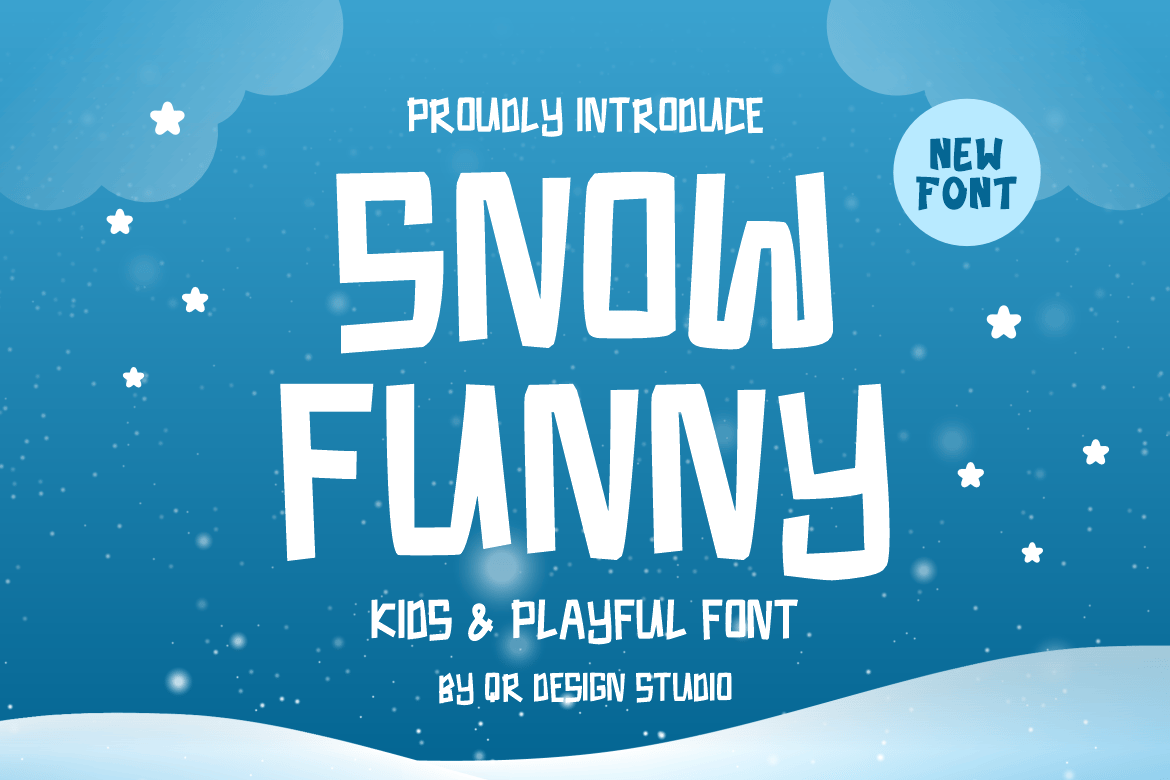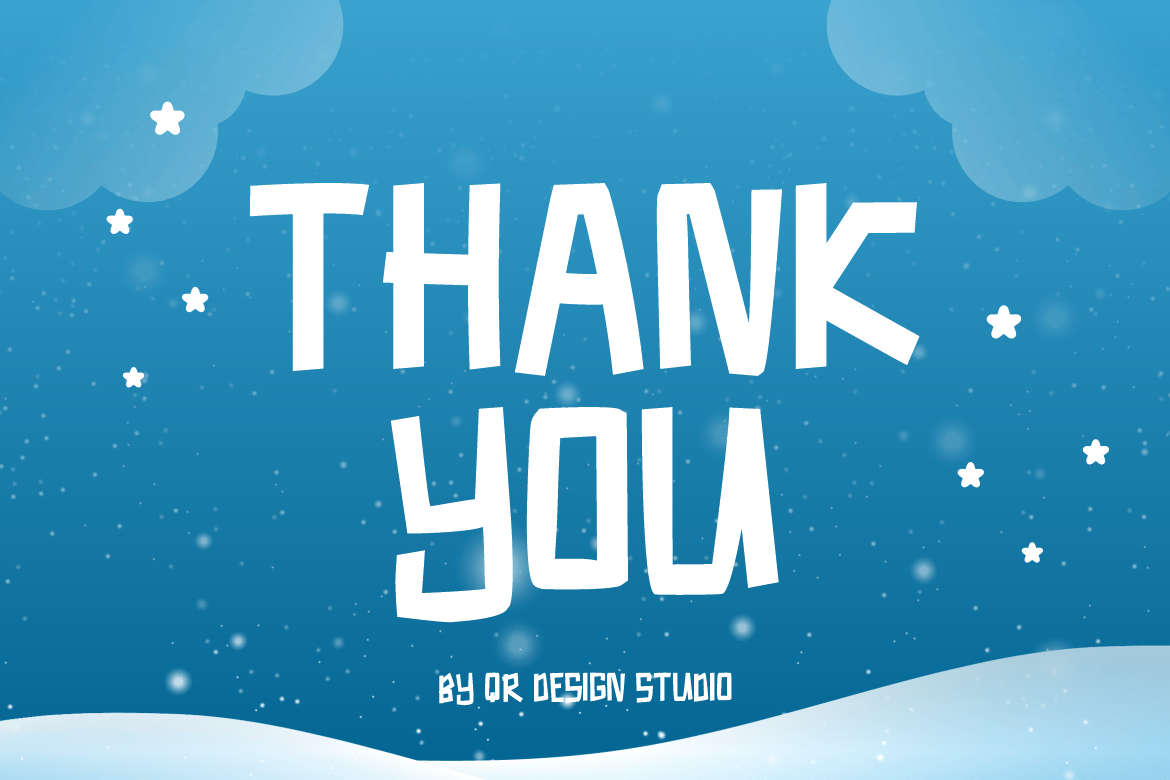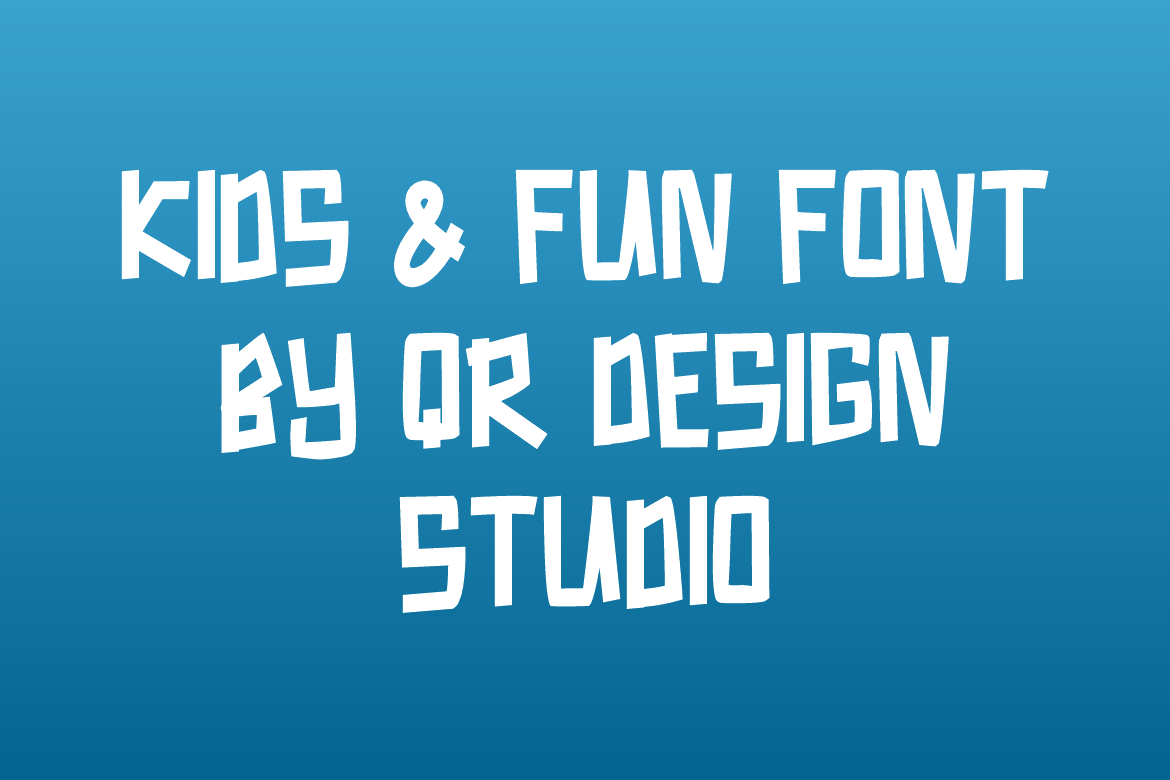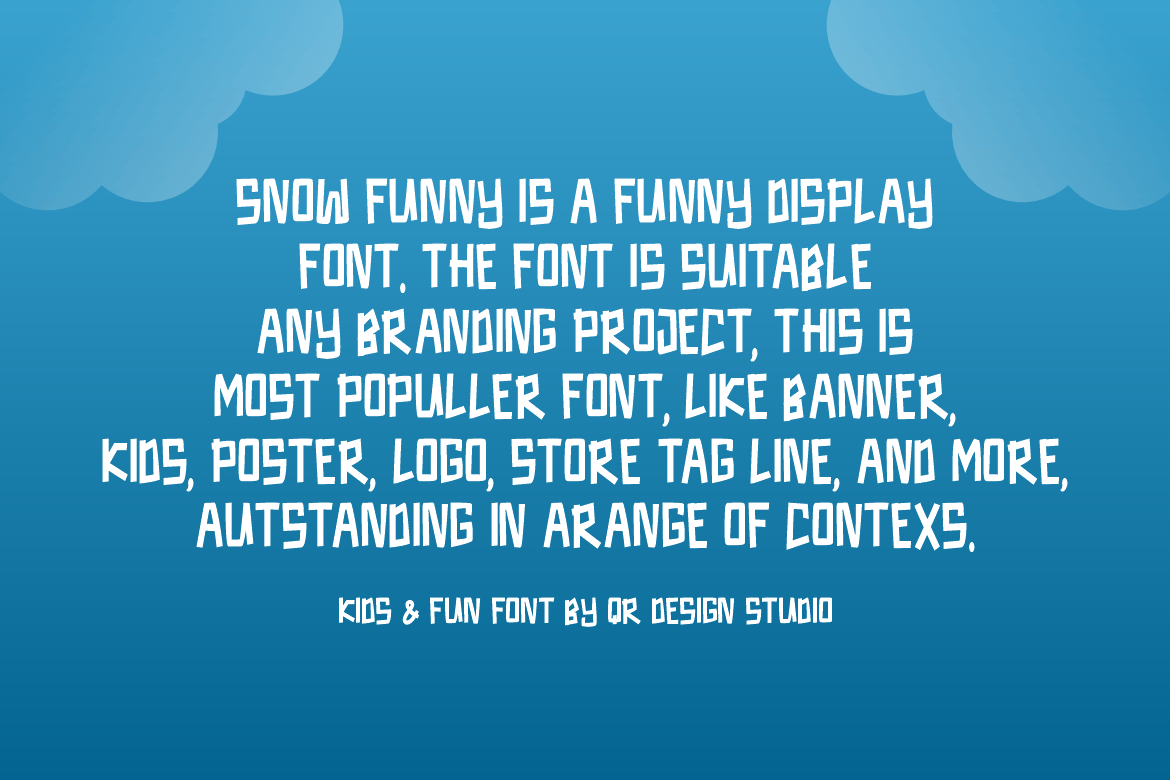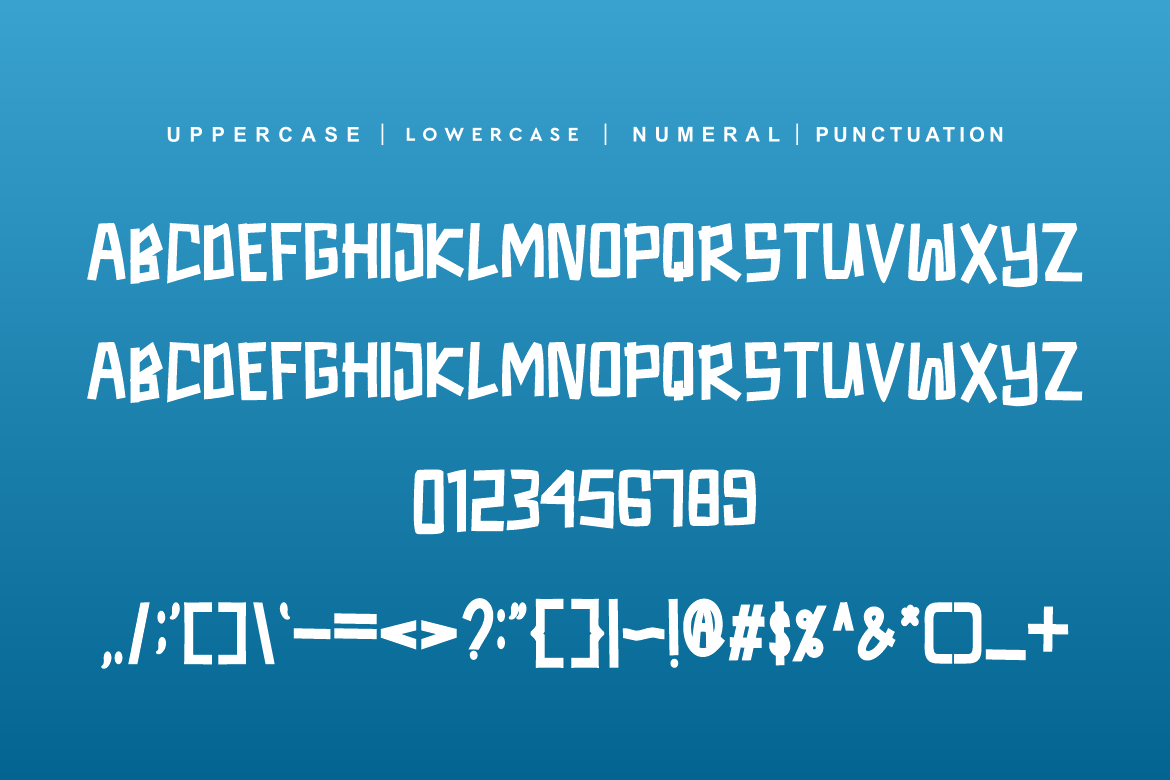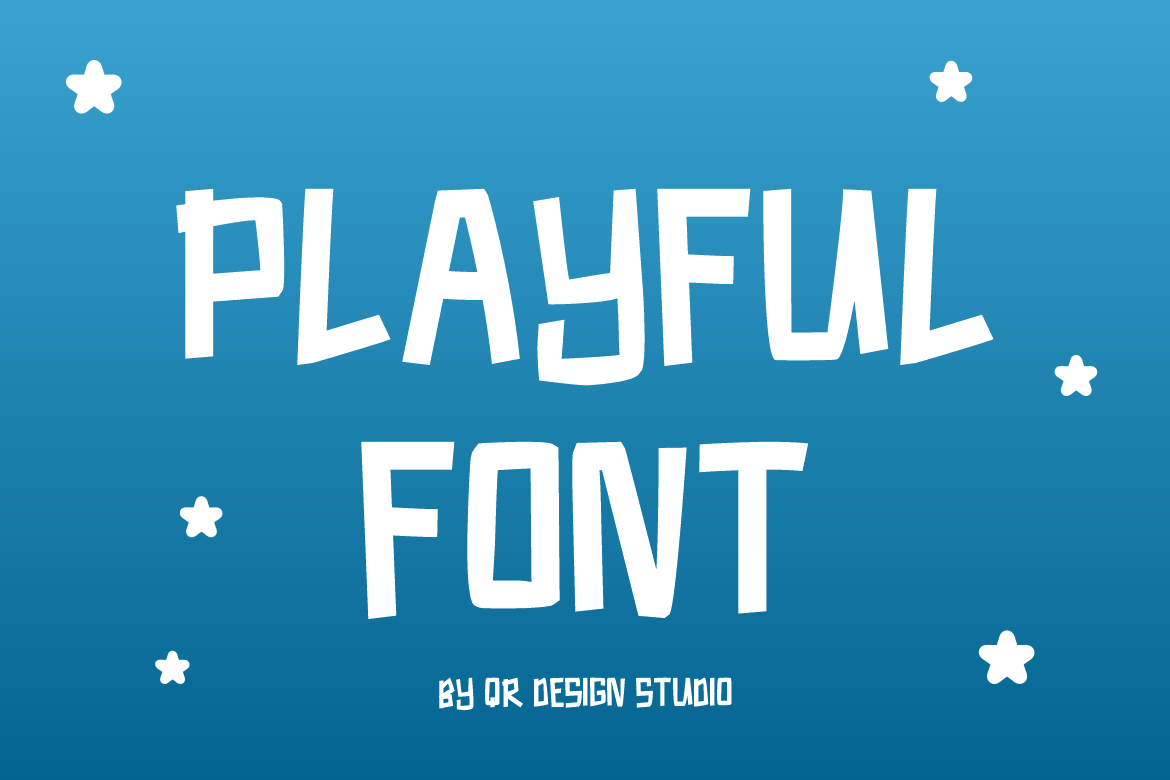
Snow Funny – Playful Font
Snow Funny – Playful Font is a bold and authentic display font.
The font is suitable for any branding project like logo, winter, Christmas, poster, food, greeting card, travel, sport, and many more.
Outstanding in a wide range of contexts.